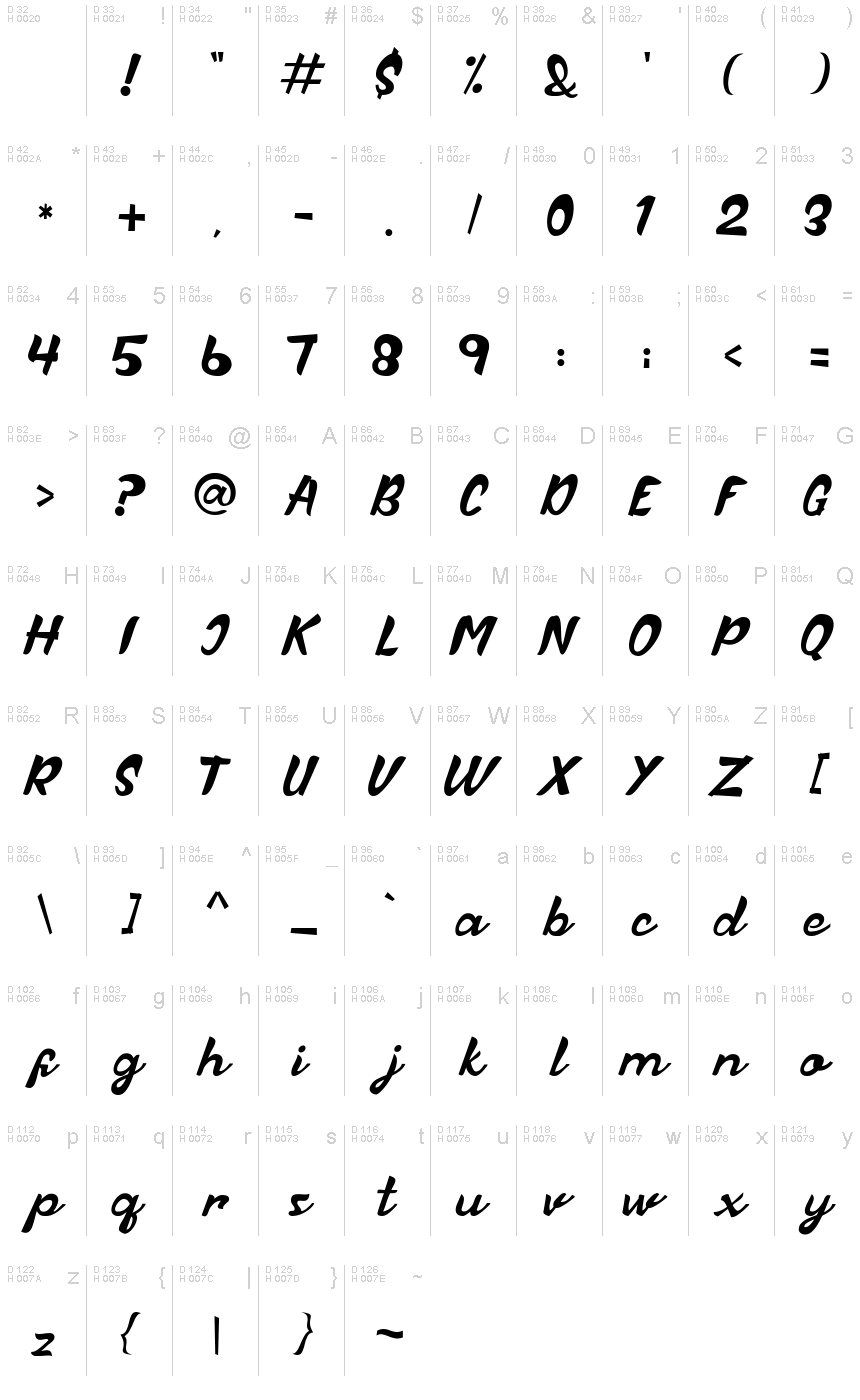
Anttane
Anttane, crafted by Sesa Grafika, captures the essence of personal touch with its handwritten style that exudes warmth and authenticity. Its fluid strokes and playful character curves evoke a sense of informal elegance, making it a delightful choice for projects that require a humanistic approach. The font's casual yet sophisticated flair makes it versatile—ideal for invitations, branding, and editorial work where personality is key.
Anttane's aesthetic charm lies in its ability to blend seamlessly into designs that call for a bespoke feel.